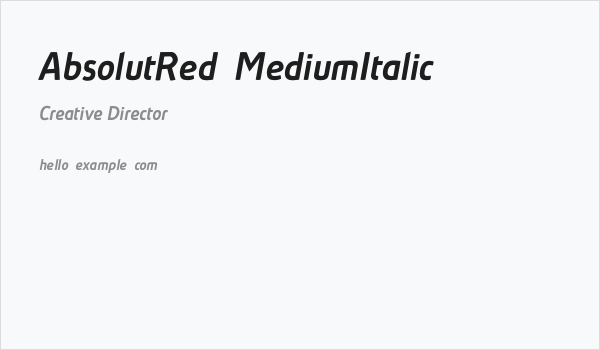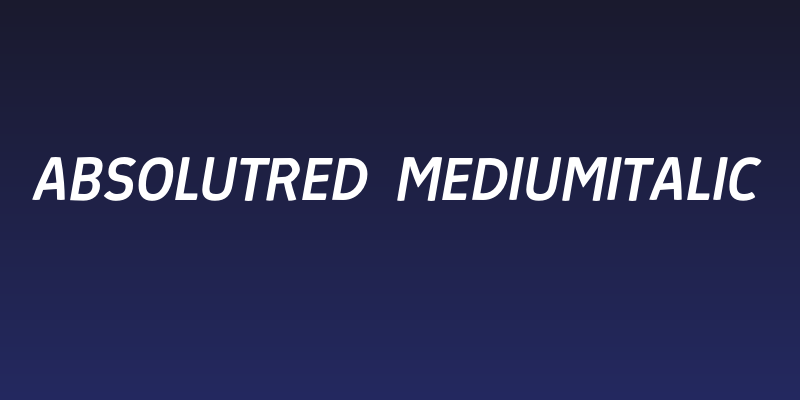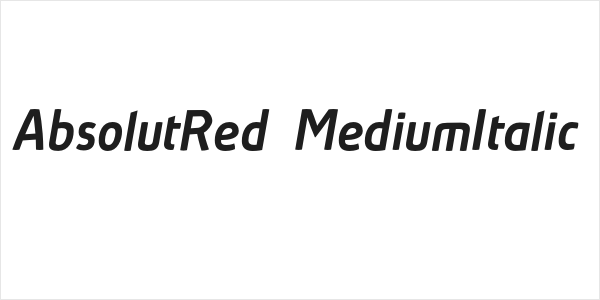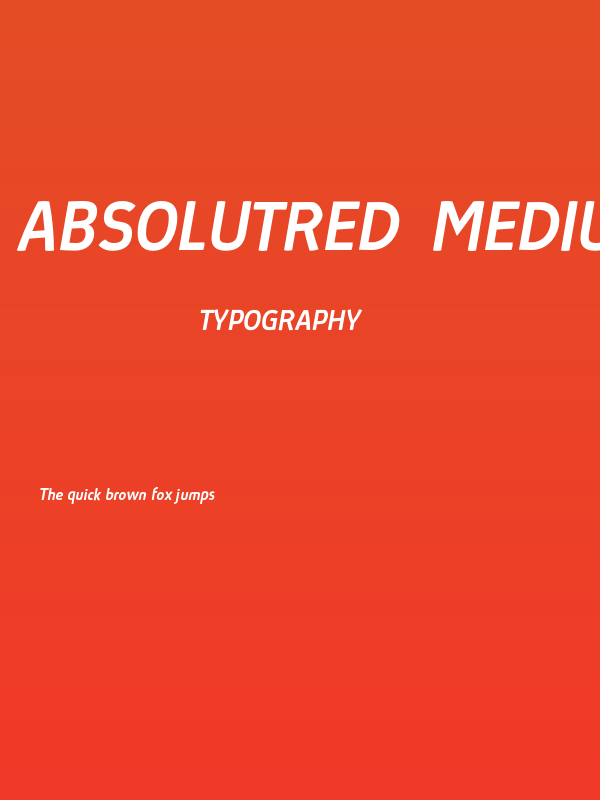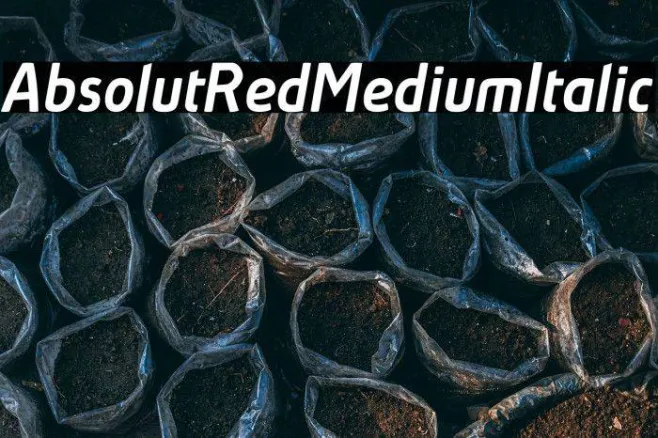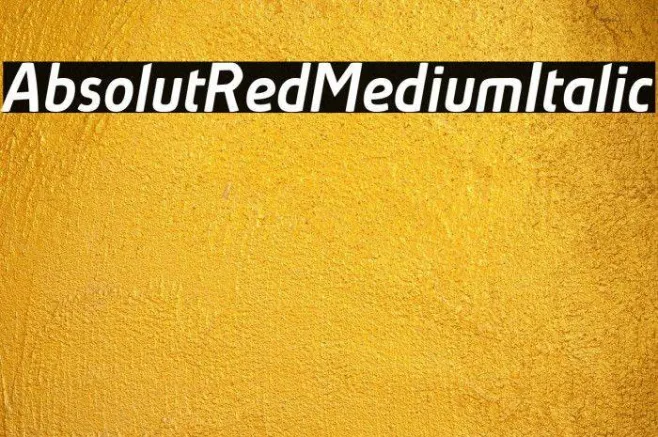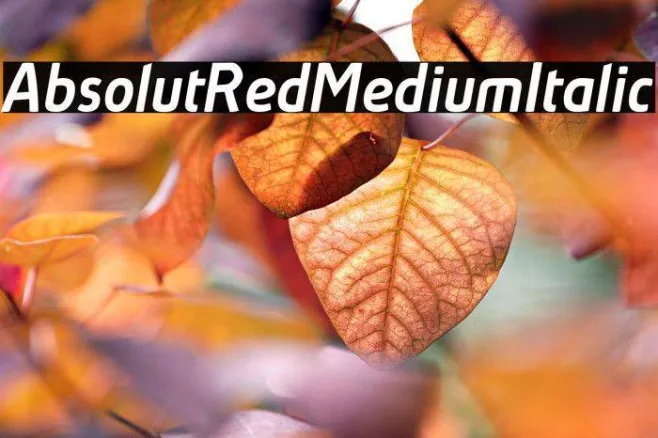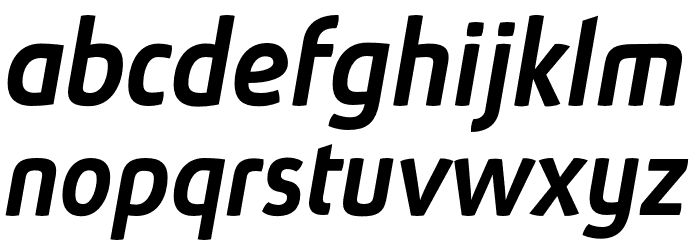
AbsolutRed-MediumItalic Font
AbsolutRed-MediumItalic Description
This font features a modern and sleek design with a slight italic slant, giving it a dynamic and forward-moving appearance. The characters are well-defined with smooth curves and a consistent stroke width, offering a clean and professional look. The uppercase letters are bold and commanding, while the lowercase letters maintain a harmonious balance, making it versatile for various design needs. The numbers and special characters are crafted with the same attention to detail, ensuring readability and aesthetic appeal across all elements.
| Proposed Projects | Ideal for branding, advertising, and digital media projects that require a contemporary and professional touch. |